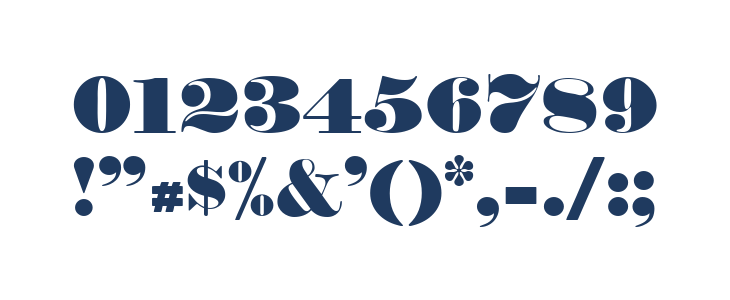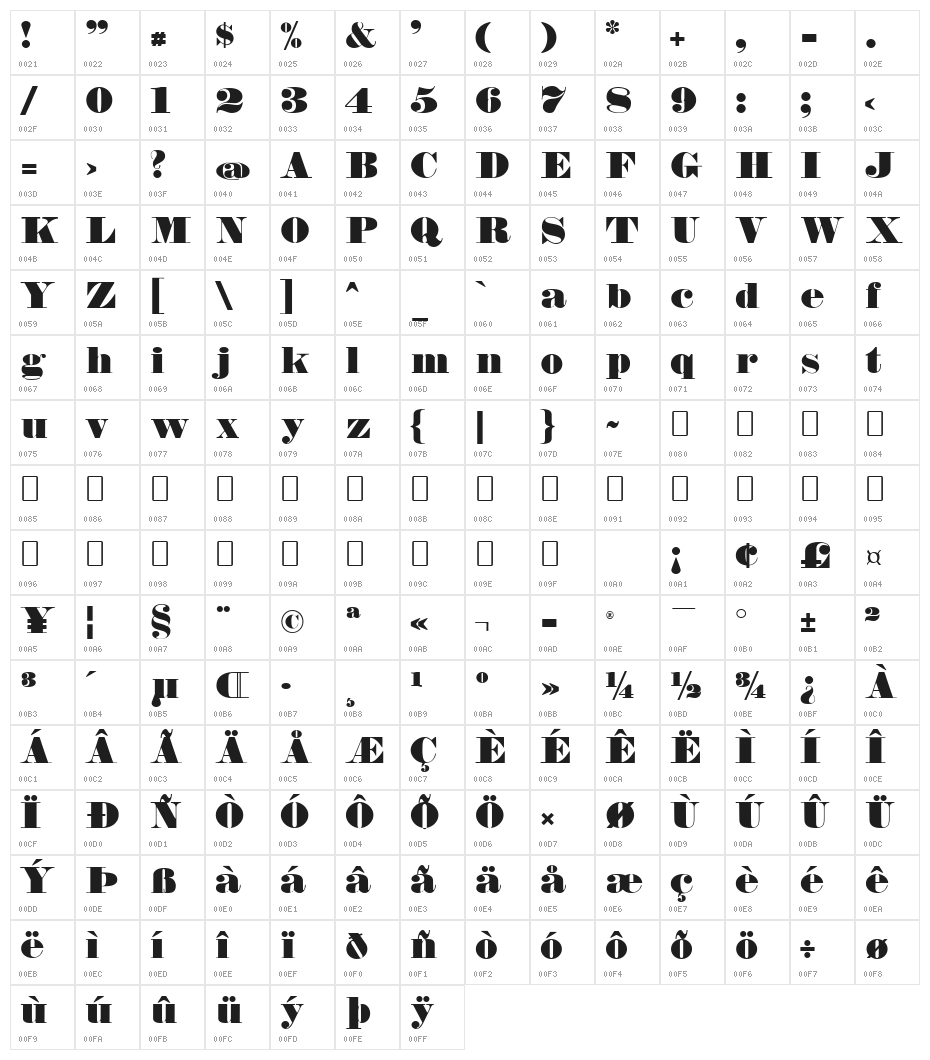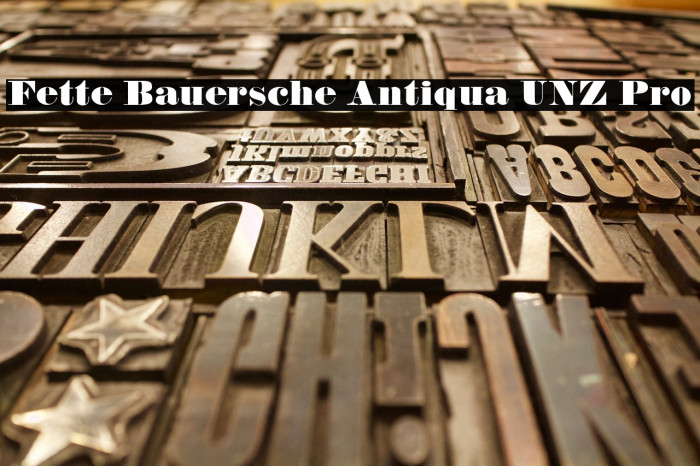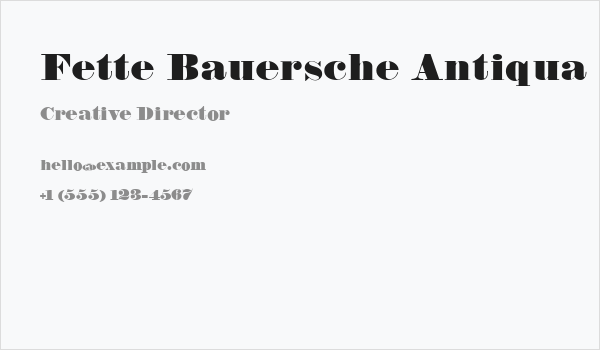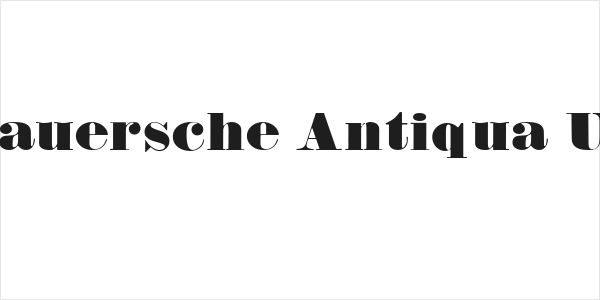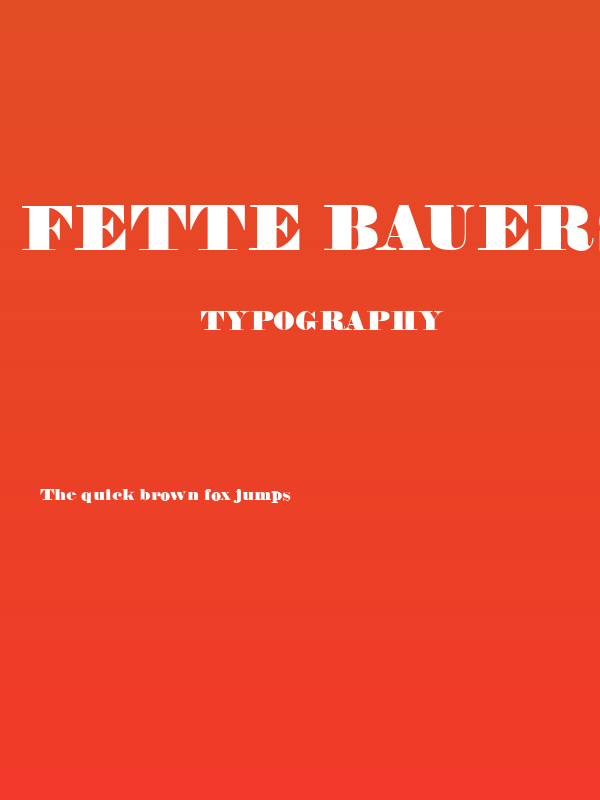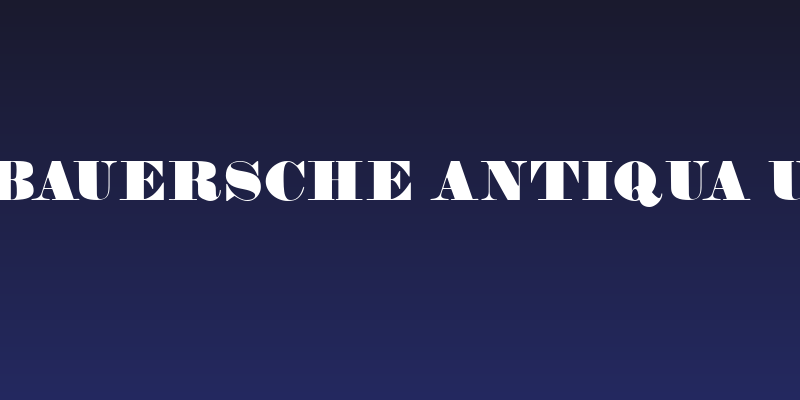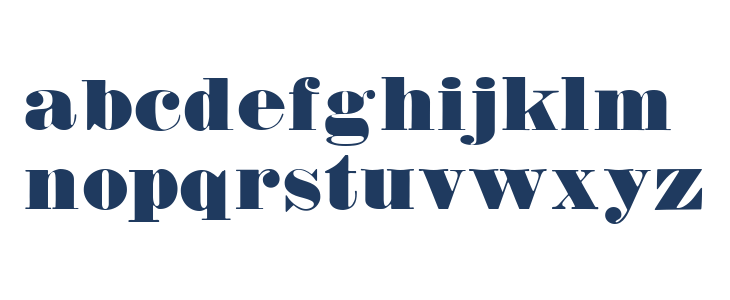
Fette Bauersche Antiqua UNZ Pro Font
Fette Bauersche Antiqua UNZ Pro Description
This typeface features bold, dramatic strokes with high contrast between thick and thin lines, creating a striking and authoritative appearance. The uppercase letters are particularly prominent, with a strong presence that commands attention. The lowercase letters maintain a consistent style, offering a cohesive look across different text sizes. The numerals are equally bold, ensuring they stand out in any context. Special characters are designed with the same boldness, providing a uniform aesthetic throughout. This font is ideal for making a statement, with its powerful and impactful design.
| Proposed Projects | Ideal for headlines, posters, branding, and any project requiring a bold, impactful typeface. |